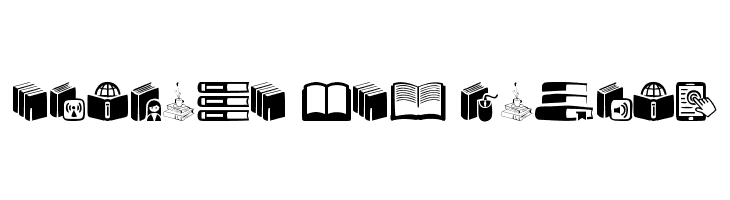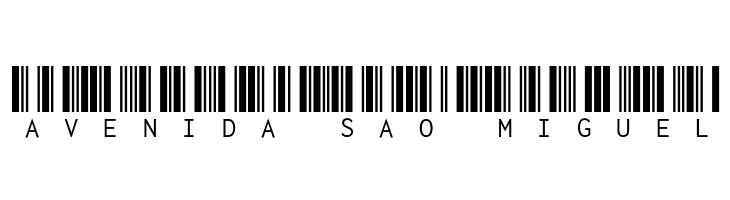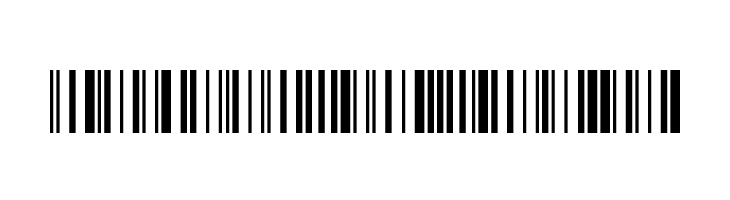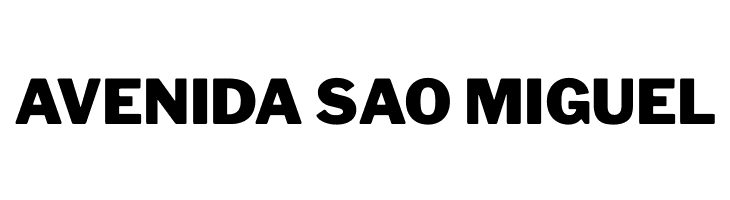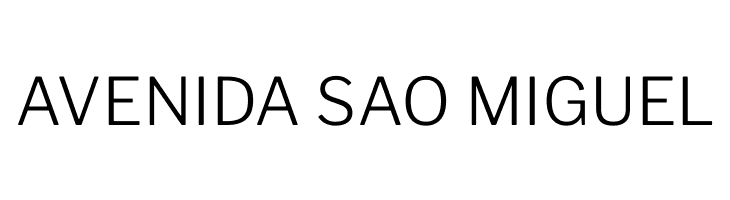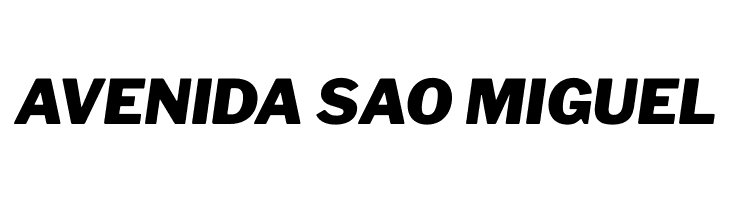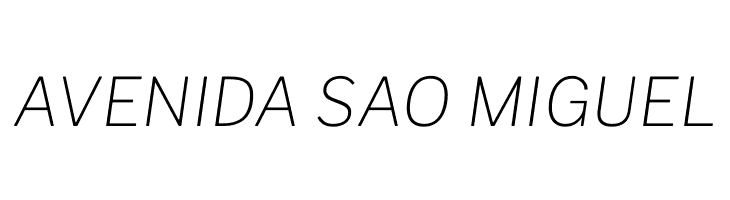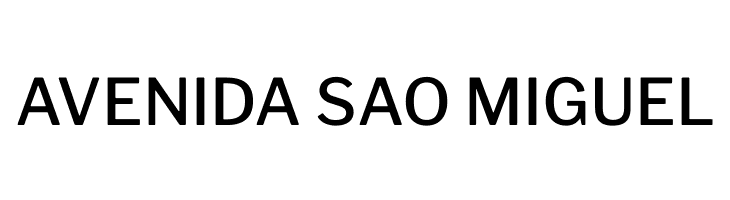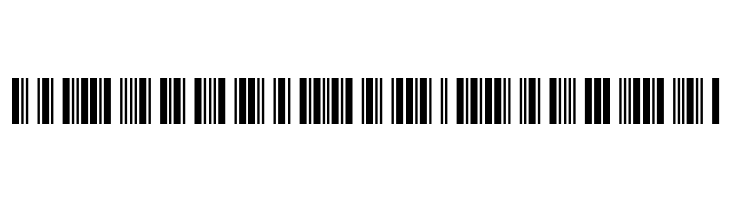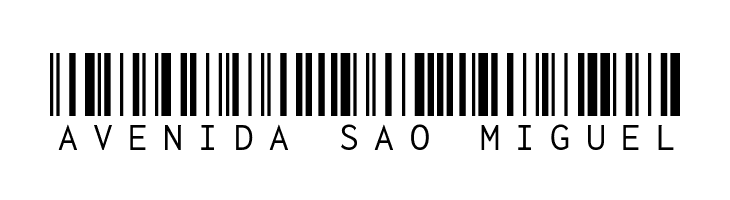
• Liberty Legion Expanded
A bold, geometric font with a modern, authoritative style.
• Liberty Legion Expanded Italic
Bold, italicized, and expanded font with a dynamic and modern style.
• Liberty Legion Gradient
A bold, futuristic font with a gradient effect created by horizontal lines.
• Liberty Legion Gradient Italic
A bold, italicized font with a gradient effect and high contrast, ideal for modern and dynamic designs.
• Liberty Legion Halftone
A bold, modern font with a unique halftone effect and strong visual impact.
• Liberty Legion Halftone Italic
A bold, italicized font with a halftone effect, perfect for dynamic and futuristic designs.
• Liberty Legion Italic
A bold, italic, and angular font with a modern, dynamic style.
• Liberty Legion Laser
• Liberty Legion Laser Italic
A bold, italic font with a futuristic and dynamic style.
• Liberty Legion Leftalic
A bold, angular typeface with a leftward slant and geometric design.
• Liberty Legion Outline
A bold, outlined font with a geometric and modern style.
• Liberty Legion Outline Italic
A bold, outlined, italic font with a modern and dynamic style.
• Liberty Legion Semi-Italic
A bold, angular, and slightly italicized font with a dynamic and energetic style.
• Liberty Legion Super-Italic
A bold, italic font with a dynamic and angular style.
• Library
A bold pictogram font of library and book-themed icons.
• LibraSans
A clean, modern sans-serif font with consistent stroke width and excellent readability.
• Libre Barcode 128 Regular
A decorative font that replicates the appearance of a barcode with vertical bars.
• Libre Barcode 128 Text Regular
A barcode-inspired font with high contrast and tight spacing, ideal for modern and technical designs.
• Libre Barcode 39 Regular
A functional barcode-style font designed for scanning accuracy.
• Libre Barcode 39 Text Regular
A barcode style font that replicates the look of traditional barcodes with clear, distinct characters.
• Libre Franklin Black Italic